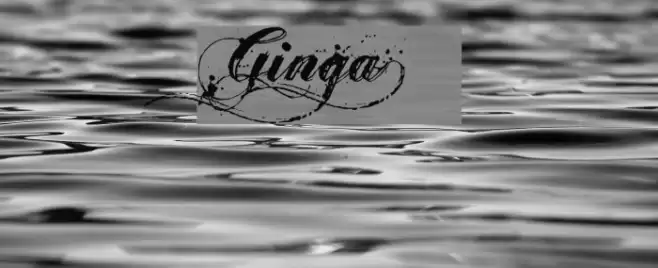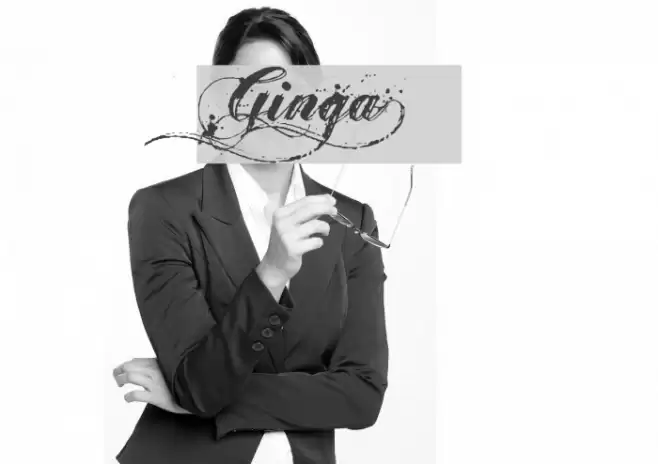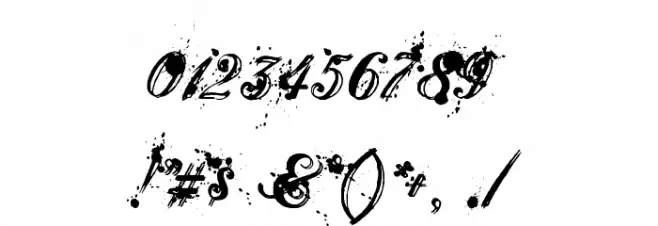
This font is a highly decorative and artistic script style, characterized by its intricate flourishes and splatter effects that give it a grunge aesthetic. The uppercase letters are particularly elaborate, with extended swirls and embellishments that create a sense of movement and elegance. The lowercase letters maintain a similar style but are slightly more restrained, allowing for better readability. Numbers and special characters follow the same ornate design, making them stand out with their unique flair. The overall appearance is dramatic and eye-catching, suitable for projects that require a bold and artistic touch.
An ornate script font with grunge splatter effects and elaborate flourishes from Uncategorized fonts.
- Proposed Projects: Ideal for album covers, event invitations, artistic posters, and branding that requires a dramatic flair.
- Use Case: Logos, Headlines, Artistic projects